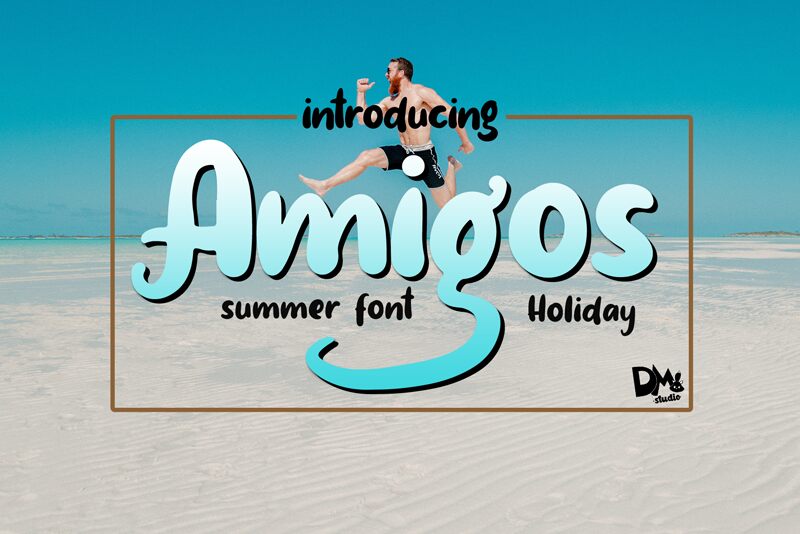
Amigos
Amigos, the bold and captivating typeface designed by DM Letter Studio - Dimas Prasetyo, is a perfect choice for projects that demand a touch of creativity and uniqueness. With its smooth brush style, this font adds an artistic flair to any design. Amigos is ideal for branding materials, such as logos and packaging designs, as well as eye-catching posters and social media graphics. Its bold weight ensures that your message stands out with confidence. Let Amigos be your trusted companion in crafting visually stunning projects that leave a lasting impression.